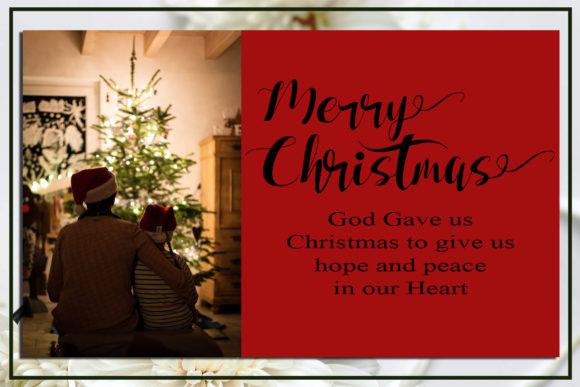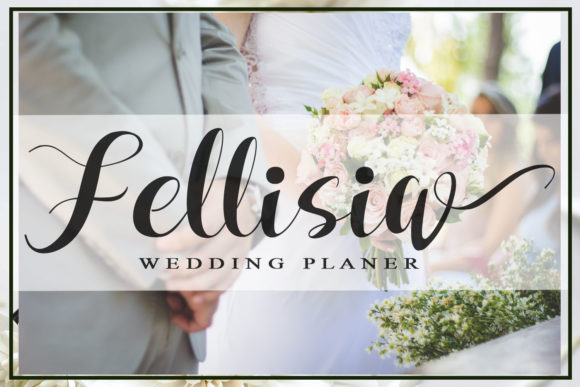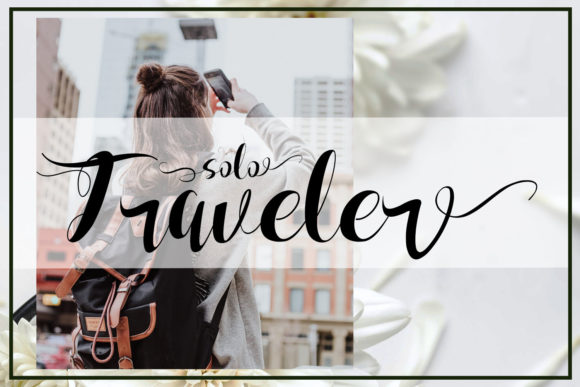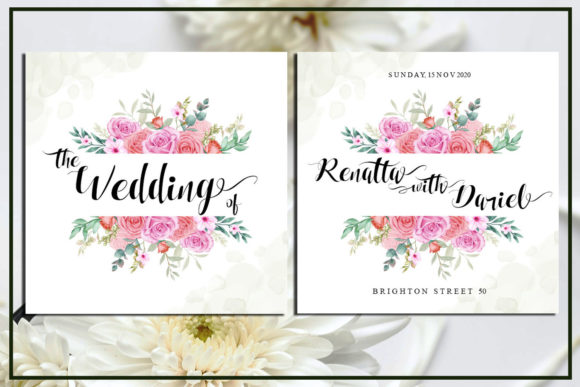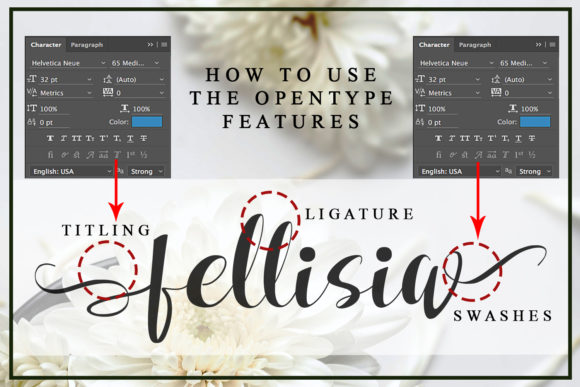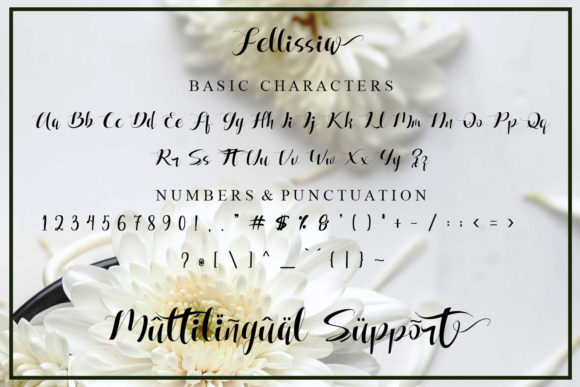
Fellissia Font: The Perfect Choice for Your Creative Projects
In the world of typography, fonts play a crucial role in conveying the tone and personality of a design. For designers and crafters looking for a modern and romantic touch, the Fellissia font is an excellent choice. This beautiful handwritten font is perfect for a wide range of creative projects, from invitations and Christmas cards to quotes, greeting cards, logos, and business cards.
What Makes Fellissia Font So Special?
Fellissia is a modern and romantic handwritten font that boasts a unique set of characteristics. Its varying baseline, smooth lines, and gorgeous glyphs make it a standout in the world of typography. The font’s elegant and flowing script is perfect for adding a touch of sophistication and whimsy to any design.
Key Features of Fellissia Font
- Varying Baseline: The Fellissia font features a varying baseline, which gives it a natural and organic feel. This characteristic makes it perfect for creating designs that require a personal touch.
- Smooth Lines: The font’s smooth lines and curves create a beautiful, flowing script that is easy to read and visually appealing.
- Gorgeous Glyphs: Fellissia features a range of gorgeous glyphs, including ligatures, swashes, and alternative characters. These glyphs allow designers to add an extra touch of personality to their designs.
Uses for Fellissia Font
The Fellissia font is incredibly versatile and can be used for a wide range of creative projects. Here are some ideas to get you started:
- Invitations: Whether you’re planning a wedding, birthday party, or baby shower, the Fellissia font is perfect for creating beautiful and elegant invitations.
- Christmas Cards: Add a touch of festive cheer to your Christmas cards with the Fellissia font. Its smooth lines and gorgeous glyphs make it perfect for creating holiday greetings.
- Quotes: The Fellissia font is ideal for creating inspirational quotes, posters, and social media graphics. Its elegant script adds a touch of sophistication to any quote.
- Greeting Cards: From birthday cards to thank-you cards, the Fellissia font is perfect for creating beautiful and heartfelt greetings.
- Logos: The Fellissia font can be used to create stunning logos for businesses, products, or services. Its unique characteristics make it a great choice for brands looking to stand out.
- Business Cards: Add a touch of elegance to your business cards with the Fellissia font. Its smooth lines and gorgeous glyphs make it perfect for creating professional and stylish business cards.
Why Choose Fellissia Font?
With so many fonts available, why choose Fellissia? Here are a few reasons why this font stands out:
- Unique and Versatile: The Fellissia font is both unique and versatile, making it perfect for a wide range of creative projects.
- Elegant and Whimsical: The font’s elegant script and whimsical characteristics make it perfect for designers and crafters looking to add a touch of personality to their designs.
- Easy to Read: Despite its elegant script, the Fellissia font is easy to read, making it perfect for body text and headlines.
In conclusion, the Fellissia font is a beautiful and versatile handwritten font that is perfect for designers and crafters looking to add a touch of elegance and whimsy to their designs. Its varying baseline, smooth lines, and gorgeous glyphs make it a standout in the world of typography. Whether you’re creating invitations, Christmas cards, quotes, greeting cards, logos, or business cards, the Fellissia font is an excellent choice.